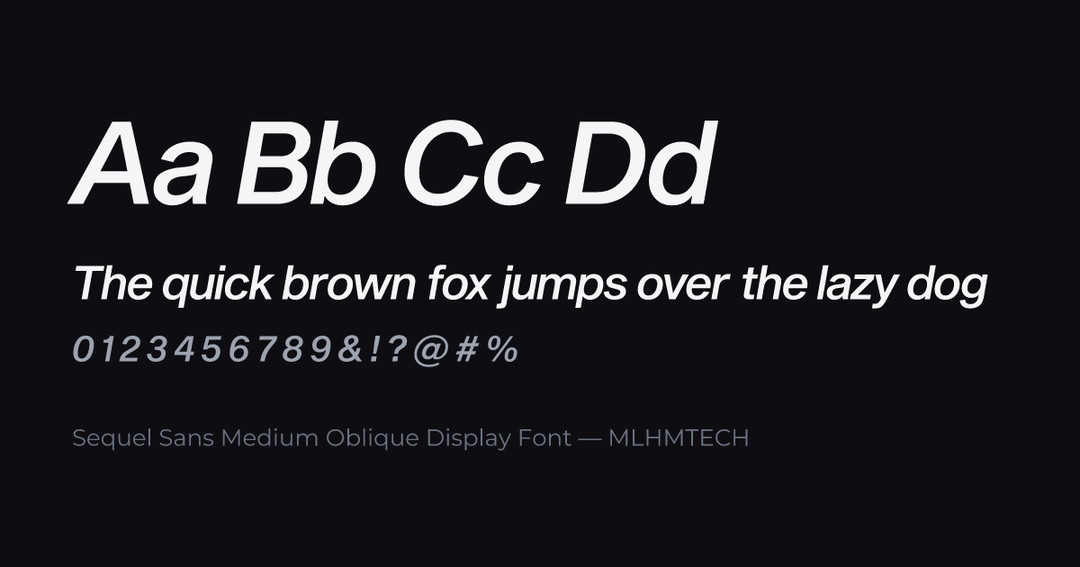
Sequel Sans Medium Oblique Display Font
Sequel Sans Medium Oblique is a modern, geometric sans-serif font with a subtle oblique slant. Ideal for display headings, logos, and branding projects that need a clean, contemporary look.
Sequel Sans Medium Oblique is part of the Sequel Sans family, known for its geometric, clean lines and excellent legibility. This medium weight with an oblique style adds a dynamic, forward-moving feel to your designs, making it perfect for headlines, posters, and digital media.
The font's balanced proportions and neutral character allow it to work well in both print and web applications. Whether you're designing a brand identity, editorial layout, or UI, this font brings a professional and modern aesthetic.